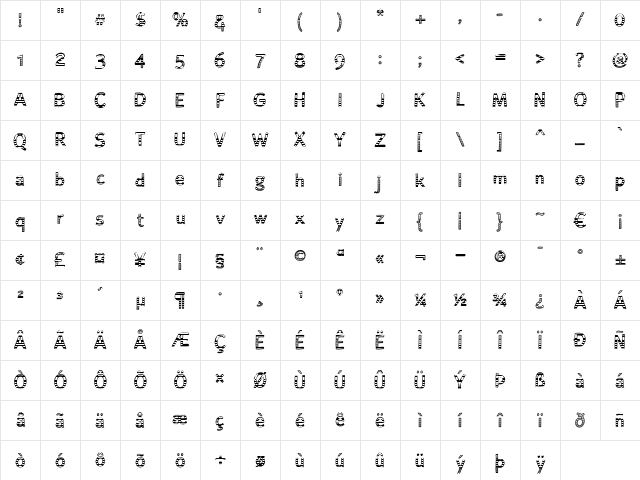
Alum Free Promotional Regular
Design Context for Alum Free Promotional
Alum Free Promotional is a composed and adaptable typeface that performs quietly and consistently across a wide range of design contexts.